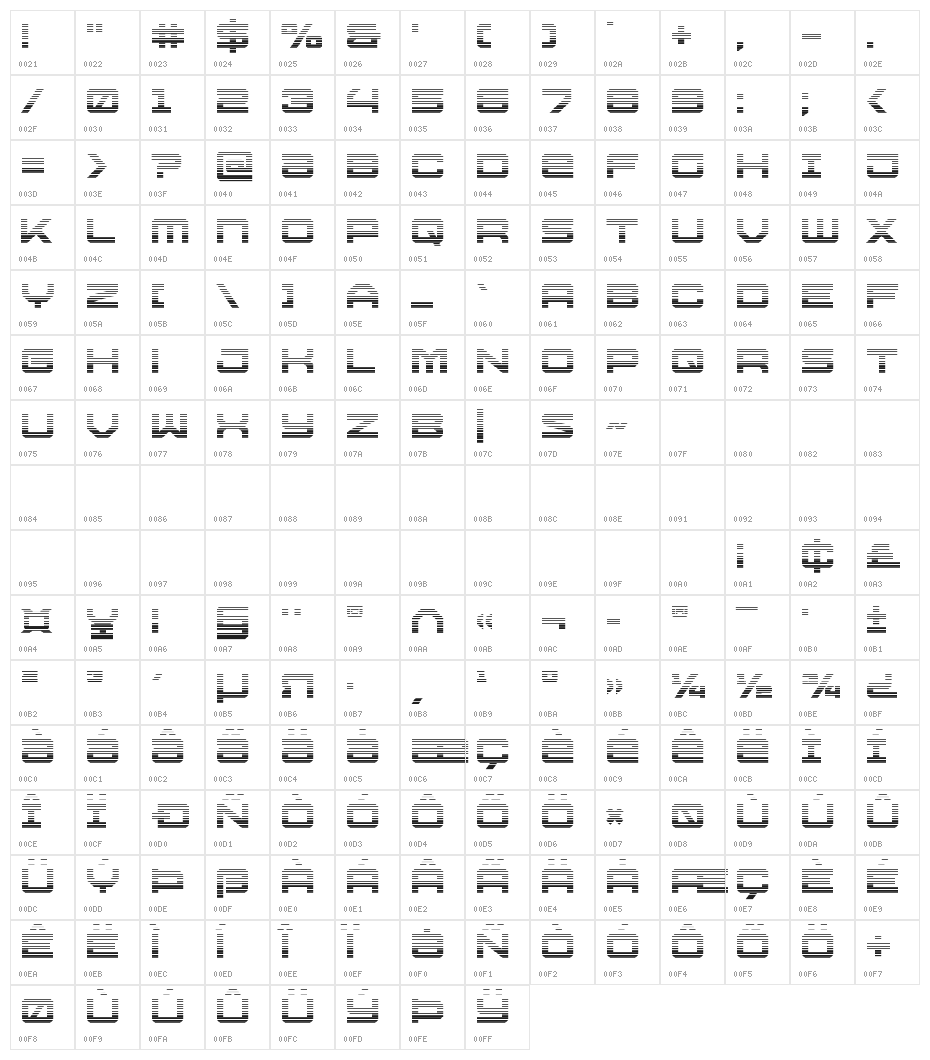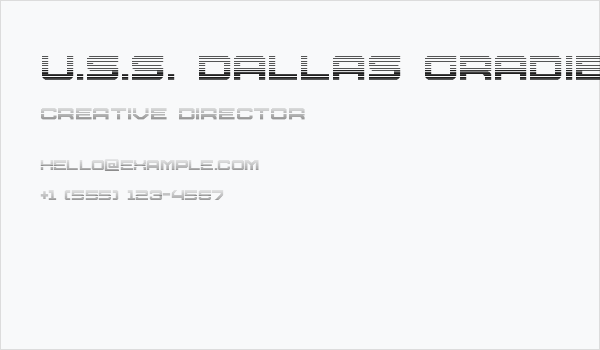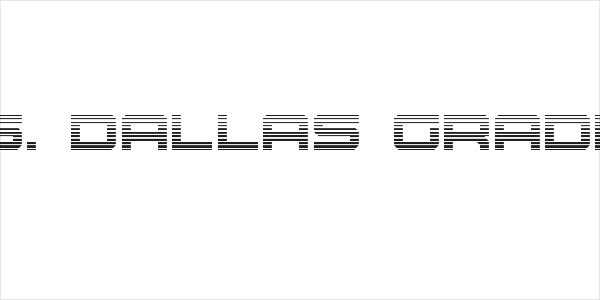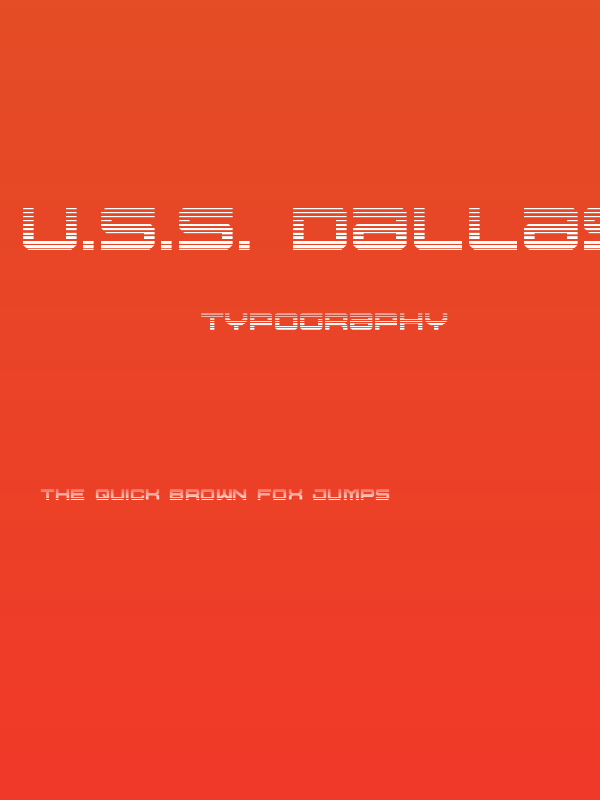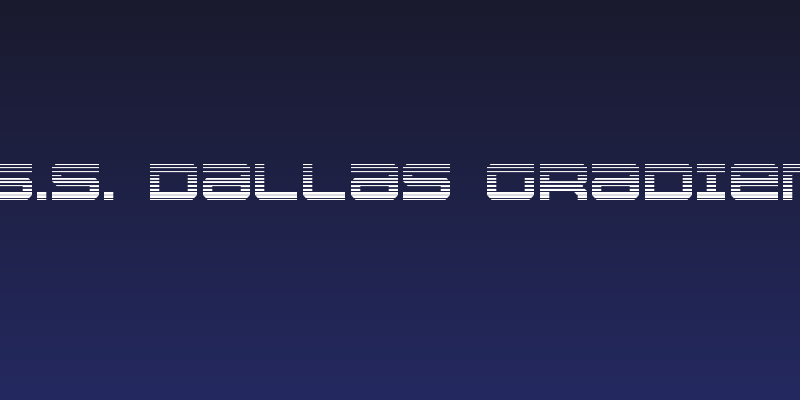
U.S.S. Dallas Gradient Font
U.S.S. Dallas Gradient Description
This font features a futuristic and digital aesthetic, characterized by its unique gradient effect within each character. The design incorporates horizontal lines that create a sense of movement and depth, making it stand out in any digital or tech-related project. The uppercase and lowercase letters maintain a consistent style, with sharp angles and a geometric structure. Numbers and special characters are designed to match the overall theme, ensuring a cohesive look across all text elements.
| Proposed Projects | Ideal for tech-related branding, digital artwork, video game interfaces, and futuristic-themed posters. |